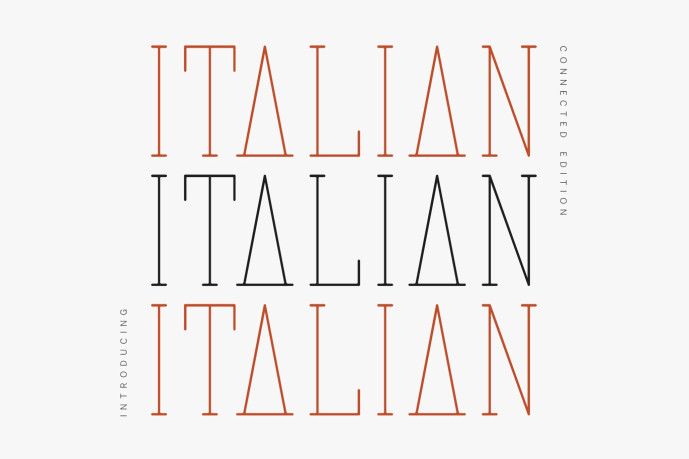
Italian Typeface
Designer: VPcreativeshop
Italian Typeface is a refined, condensed serif typeface inspired by classic Italian typography, timeless editorial design, and sophisticated luxury branding. With delicate proportions, graceful curves, and subtle connected details, this typeface exudes a distinct yet modern personality. Its tall structure and elegant letterforms make it ideal for high-end logos, fashion brands, editorial layouts, luxury packaging, wedding stationery, restaurant identities, book covers, and premium marketing materials. The carefully crafted multilingual character set ensures versatility for international projects while maintaining a stylish and consistent look. Whether you’re designing for a boutique brand, creating elegant headlines, or crafting a sophisticated visual identity, Italian Connected Edition brings charm, refinement, and character to every composition. Features: OTF format, uppercase and lowercase, numbers and punctuation, multilingual support, elegant connected details, luxury editorial style, perfect for branding, logos, packaging and titles